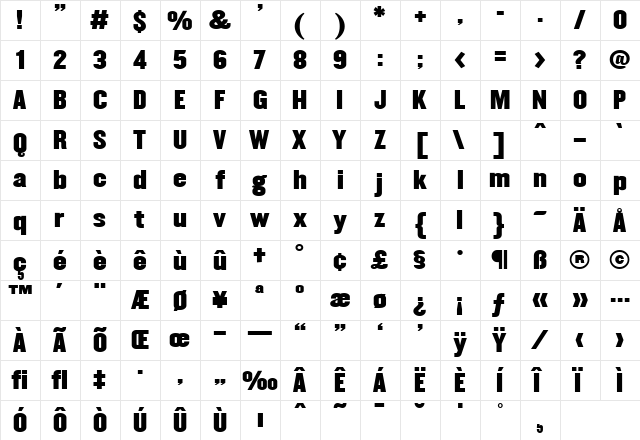
SI-Middleweight A
Design Context for SI-Middleweight Typeface
SI-Middleweight takes a measured approach to typography — its balanced proportions and neutral character make it a reliable workhorse for both digital and print work.